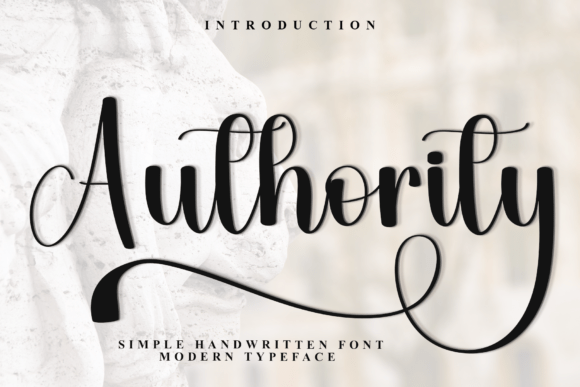
Introducing Authority Font: The Timeless Handwritten Font for Stunning Designs
In the world of typography, fonts play a crucial role in making or breaking a design. A well-chosen font can elevate your brand’s visual identity, convey your message with clarity, and leave a lasting impression on your audience. If you’re on the hunt for a font that exudes elegance, sophistication, and a touch of personality, look no further than Authority Font. This lovely and timeless handwritten font is the perfect choice for creating eye-catching logos, branding, and quotes that demand attention.
What Makes Authority Font Stand Out?
Authority Font boasts a unique and beautiful touch in every letter, making it a standout in the world of typography. Its handwritten charm and character make it an excellent choice for designers looking to add a personal touch to their work. Here are some key features that make Authority Font a must-have:
- Unique Letterforms: Each letter in Authority Font has been carefully crafted to ensure that it stands out from the rest. The font’s creator has poured their heart and soul into designing a font that is both aesthetically pleasing and highly legible.
- Timeless Appeal: Unlike trendy fonts that may quickly go out of style, Authority Font has a timeless quality that ensures it will remain relevant for years to come. Its classic look and feel make it an excellent choice for brands looking to establish a strong visual identity.
- Handwritten Charm: Authority Font’s handwritten charm adds a touch of personality to any design. It’s perfect for creating logos, branding, and quotes that require a more personal and human touch.
Perfect Use Cases for Authority Font
Authority Font’s versatility makes it suitable for a wide range of design applications. Here are some use cases where Authority Font truly shines:
- Logo Design: Create stunning logos that capture the essence of your brand with Authority Font. Its unique letterforms and handwritten charm make it an excellent choice for logotypes that require a personal touch.
- Branding: Establish a strong visual identity for your brand with Authority Font. Use it for business cards, letterheads, and other marketing materials to create a cohesive look and feel.
- Quotes and Typography: Add a touch of elegance to your quotes and typography with Authority Font. Its classic look and feel make it perfect for creating visually stunning quotes, posters, and social media graphics.
Design Tips for Working with Authority Font
To get the most out of Authority Font, here are some design tips to keep in mind:
- Pair it with Neutrals: Authority Font’s bold and expressive nature makes it best paired with neutral fonts that provide a clean and simple contrast.
- Experiment with Colors: Don’t be afraid to experiment with different colors to find the perfect match for your design. Authority Font looks stunning in a range of colors, from bold and bright to soft and pastel.
- Play with Ligatures: Authority Font features beautiful ligatures that add an extra touch of elegance to your design. Experiment with different ligatures to find the one that works best for your project.
Authority Font Specifications
Here are the key specifications of Authority Font:
- Font Type: Handwritten
- Font Style: Script
- Characters: 270+
- Ligatures: Yes
- Language Support: English, Spanish, French, and more